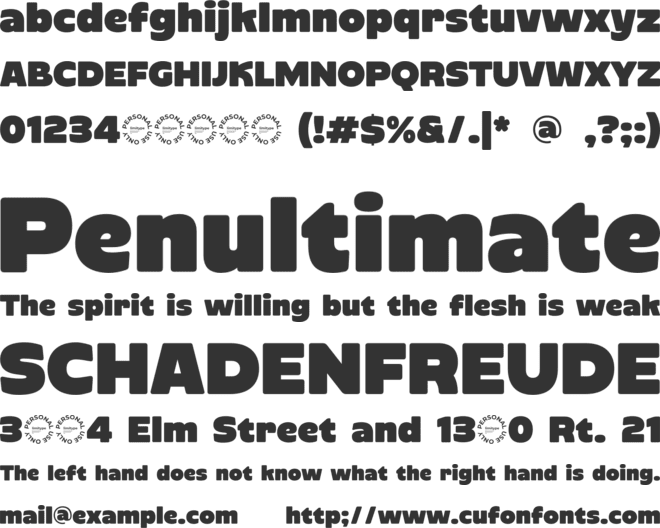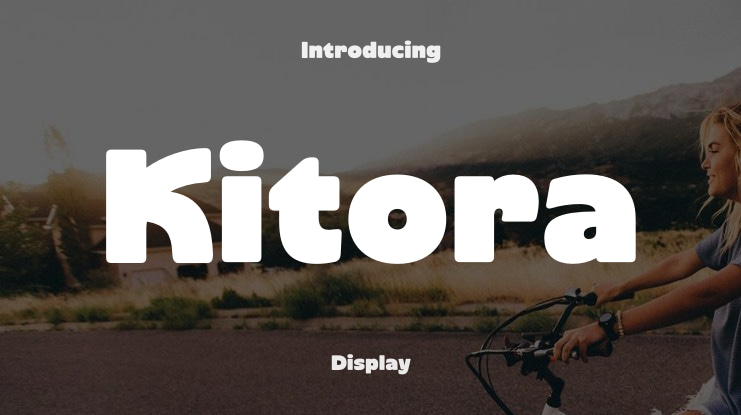
Kitora Font
Kitora is a bold sans typeface with rounded and compact shapes that highlight a playful and modern impression. Its smooth yet solid character gives a look that is both strong and warm, making it perfect for headlines, brand identities, and designs that aim to stand out with a friendly and confident personality.